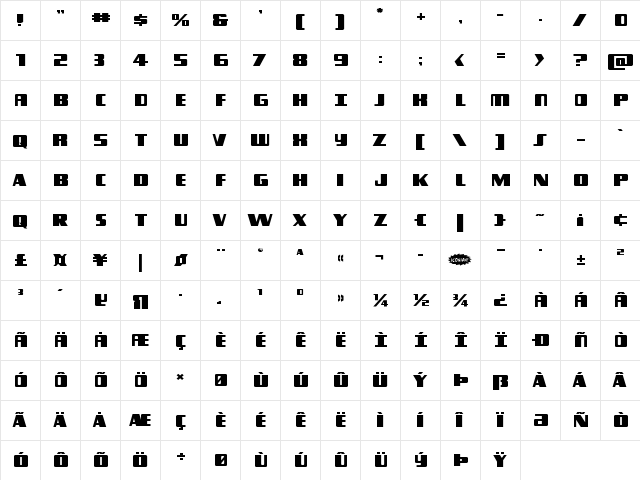
Typhoon Expanded Expanded
Design Context for Typhoon Expanded Typeface
Typhoon Expanded takes a measured approach to typography — its balanced proportions and neutral character make it a reliable workhorse for both digital and print work.